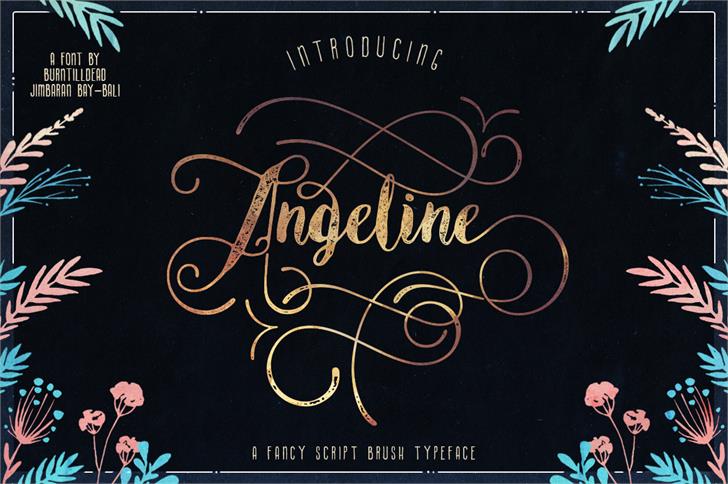
Free Angeline Vintage Font
We're glad to feature this impressive free angeline vintage font. Font Space has created this amazing and beautiful font. This is absolutely fancy font so you can easily make world-class designs.